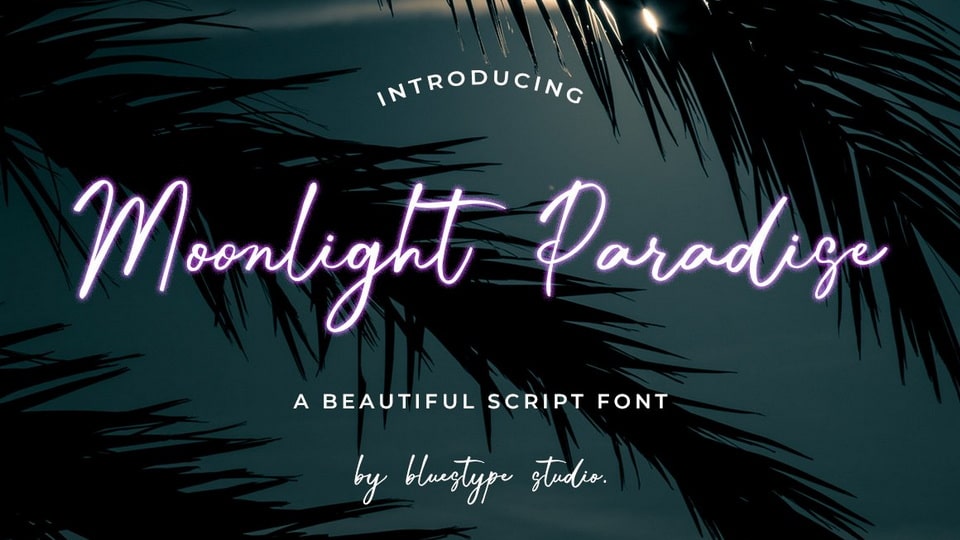
Download Moonlight Paradise font, an enchanting handwritten typeface. This versatile script font has a wide spectrum of applications ranging from greeting cards to headlines and is guaranteed to add a romantic feel to your next project